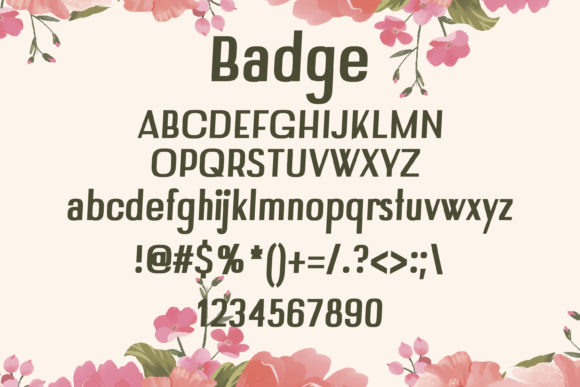
Introducing Badge Font: The Ultimate Display Font for Bold Designs
In the world of typography, a good font can make all the difference in creating a lasting impression. For designers and crafters looking for a bold and versatile font to elevate their branding projects, posters, and digital products, look no further than Badge Font. This striking display font is designed to make a statement, with smooth lines and a well-balanced character set that exudes confidence and sophistication.
What Makes Badge Font Stand Out?
Badge Font is a bold display font that is both strong and well-balanced in each character. The smooth lines make it extremely versatile and great to use for branding projects, striking posters, and as a unique display font for web or app development. Whether you’re looking to create a bold logo, a striking poster, or a unique digital product, Badge Font is the perfect choice.
Key Features of Badge Font
- Bold and Strong: Badge Font is designed to make a statement, with bold and strong characters that demand attention.
- Well-Balanced: Each character is carefully crafted to ensure a perfect balance of curves and lines, creating a harmonious and visually appealing effect.
- Smooth Lines: The smooth lines of Badge Font make it extremely versatile and suitable for a wide range of design applications.
- Unique Display Font: Badge Font is perfect for use as a display font for web or app development, adding a touch of personality and style to your digital products.
Use Cases for Badge Font
Badge Font is an incredibly versatile font that can be used in a variety of design applications, including:
- Branding Projects: Use Badge Font to create a bold and memorable logo that sets your brand apart.
- Striking Posters: Create eye-catching posters that grab attention with Badge Font’s bold and strong characters.
- Web and App Development: Use Badge Font as a unique display font to add personality and style to your digital products.
- Advertising and Marketing: Use Badge Font to create bold and attention-grabbing ads that drive results.
Why Choose Badge Font?
With so many fonts available, why choose Badge Font? Here are just a few reasons why designers and crafters love Badge Font:
- High-Quality Design: Badge Font is designed with high-quality craftsmanship, ensuring a professional and polished look.
- Flexibility: Badge Font is incredibly versatile and can be used in a wide range of design applications.
- Easy to Read: Despite its bold design, Badge Font is easy to read, making it perfect for use in a variety of contexts.
Tips for Using Badge Font Effectively
To get the most out of Badge Font, here are a few tips to keep in mind:
- Use it Boldly: Badge Font is designed to make a statement, so don’t be afraid to use it boldly and prominently in your designs.
- Experiment with Colors: Badge Font looks great in a variety of colors, so experiment with different color schemes to find the one that works best for your design.
- Pair it with Other Fonts: Badge Font pairs well with a variety of other fonts, so don’t be afraid to experiment with different font combinations.
In conclusion, Badge Font is a bold and versatile display font that is perfect for designers and crafters looking to elevate their branding projects, posters, and digital products. With its smooth lines, well-balanced character set, and high-quality design, Badge Font is sure to make a lasting impression. Whether you’re looking to create a bold logo, a striking poster, or a unique digital product, Badge Font is the perfect choice.